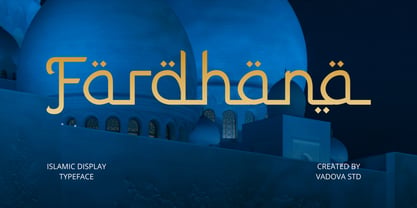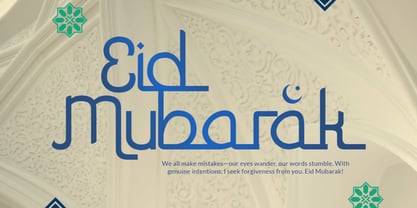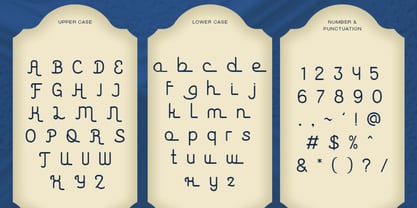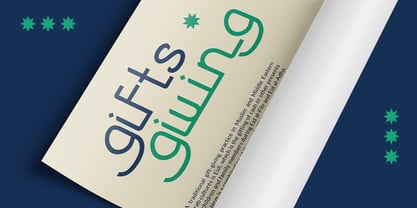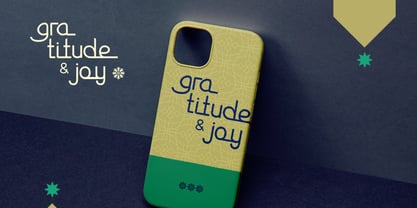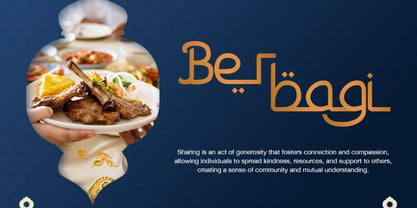
Fardhana
Fardhana Creative Display Font stands out as a culturally rich and visually distinctive Islamic display font, seamlessly blending ornamental beauty with modern design sensibility. Inspired by the curves and arches of Islamic architecture, this typeface carries a spiritual and refined energy making it ideal for designers seeking to express depth, elegance, and authenticity. Suitable for Eid, Ramadan, or Islamic New Year, adding a heartfelt and authentic touch. Mosque brochures, religious institution branding, and educational posters benefit from its ornamental clarity and sense of reverence.